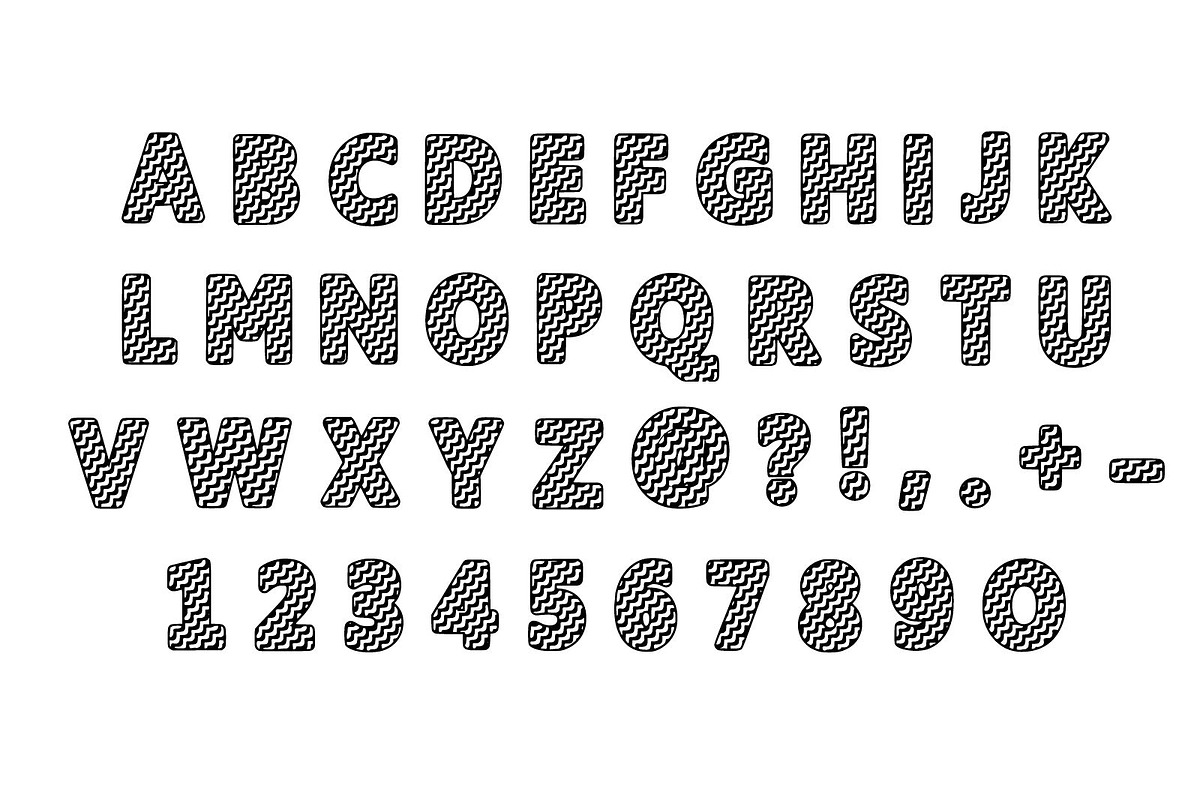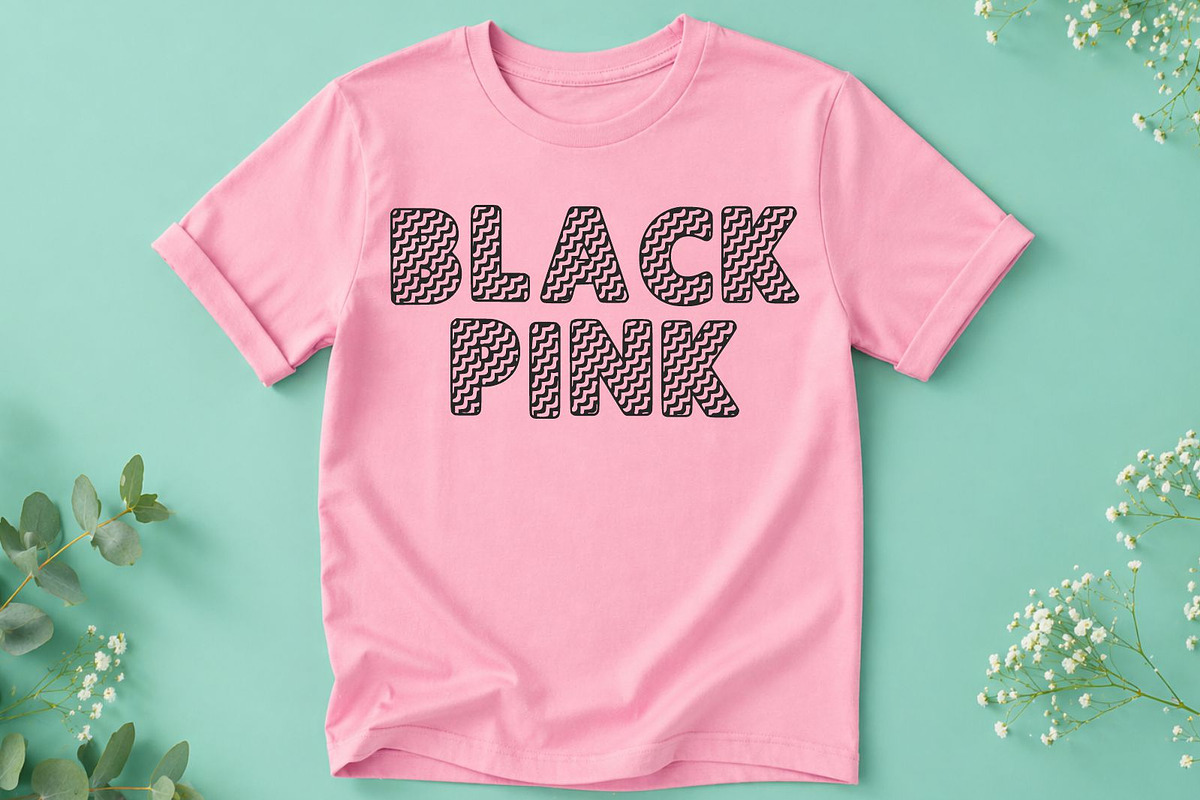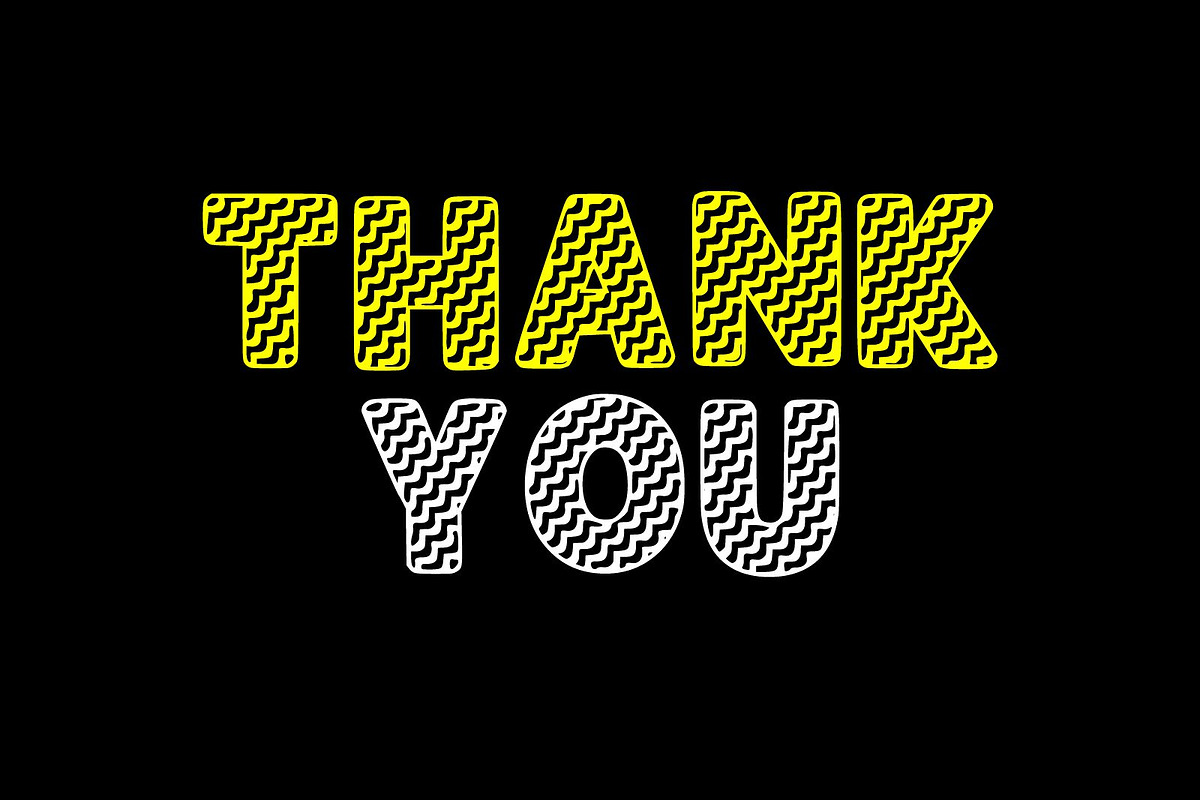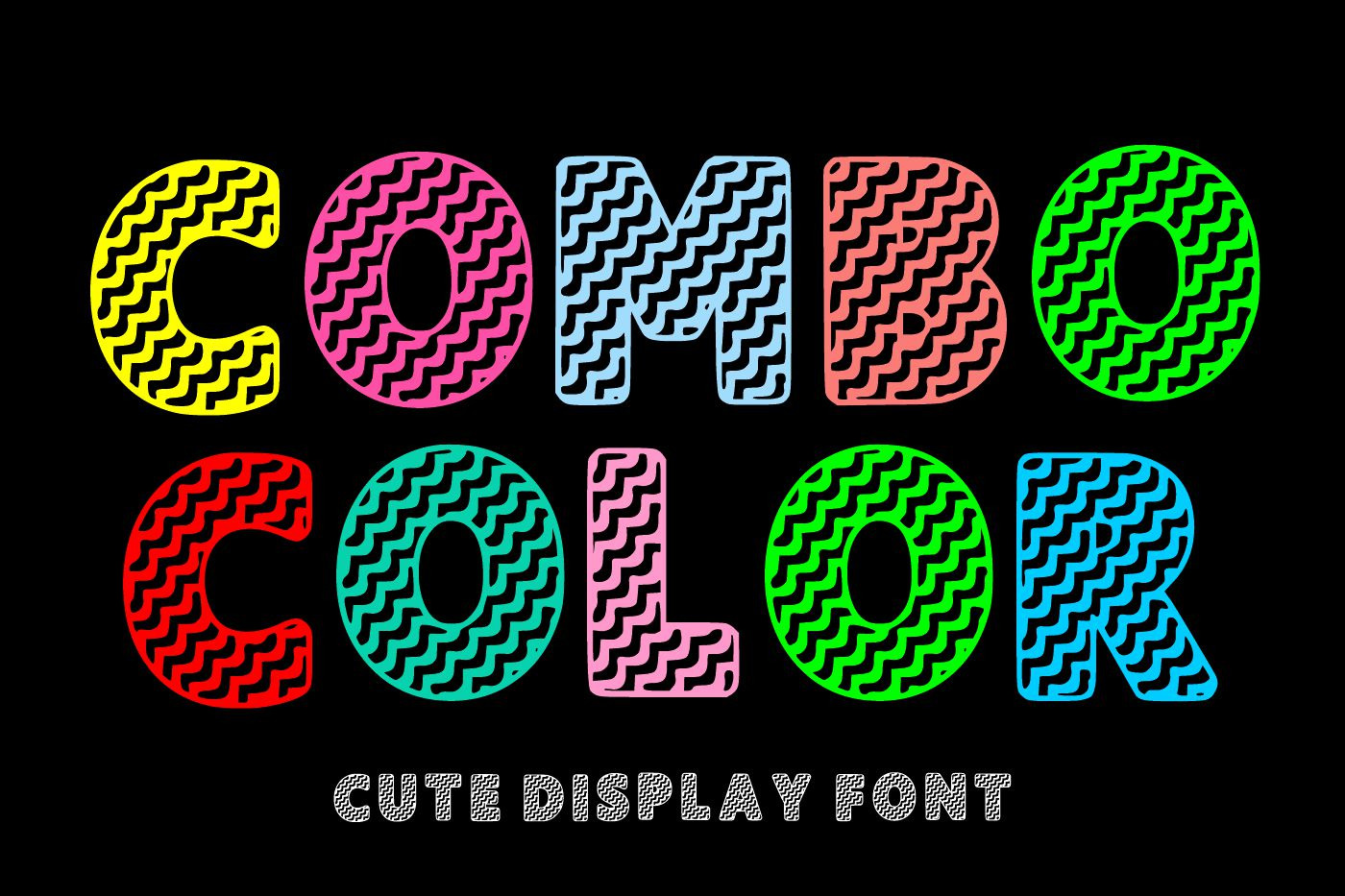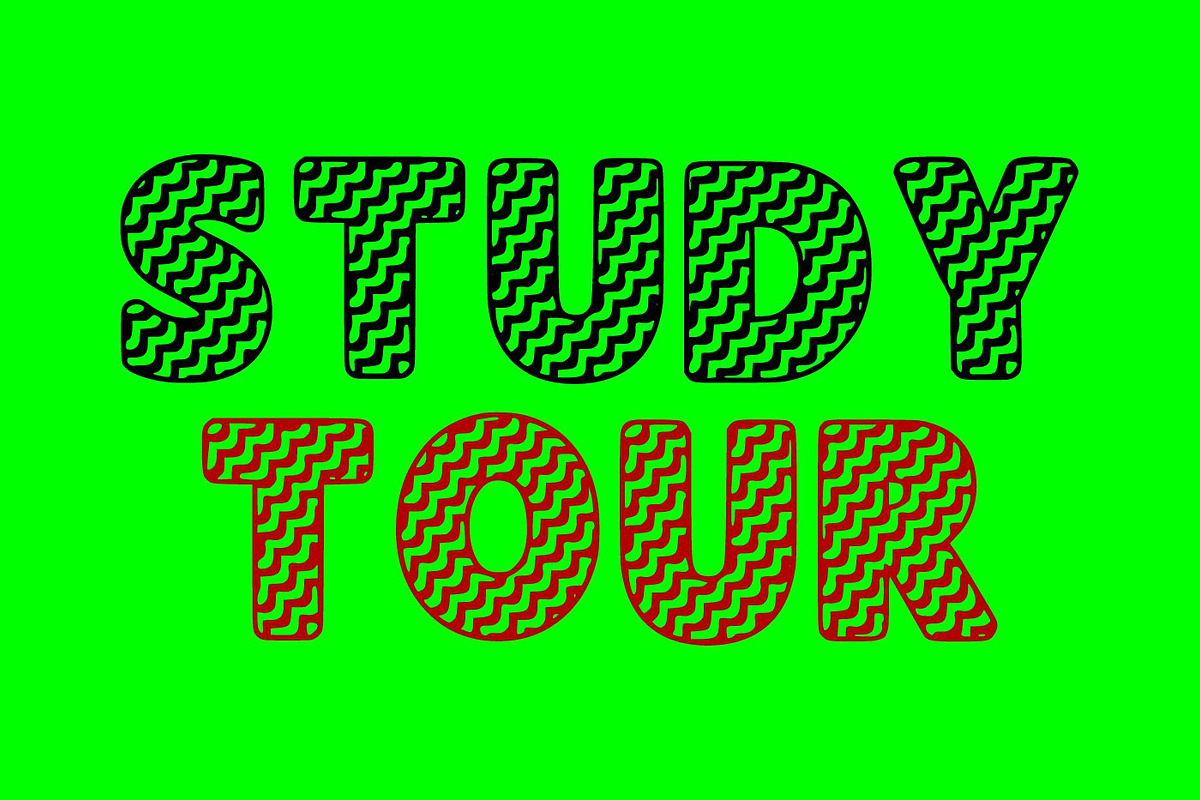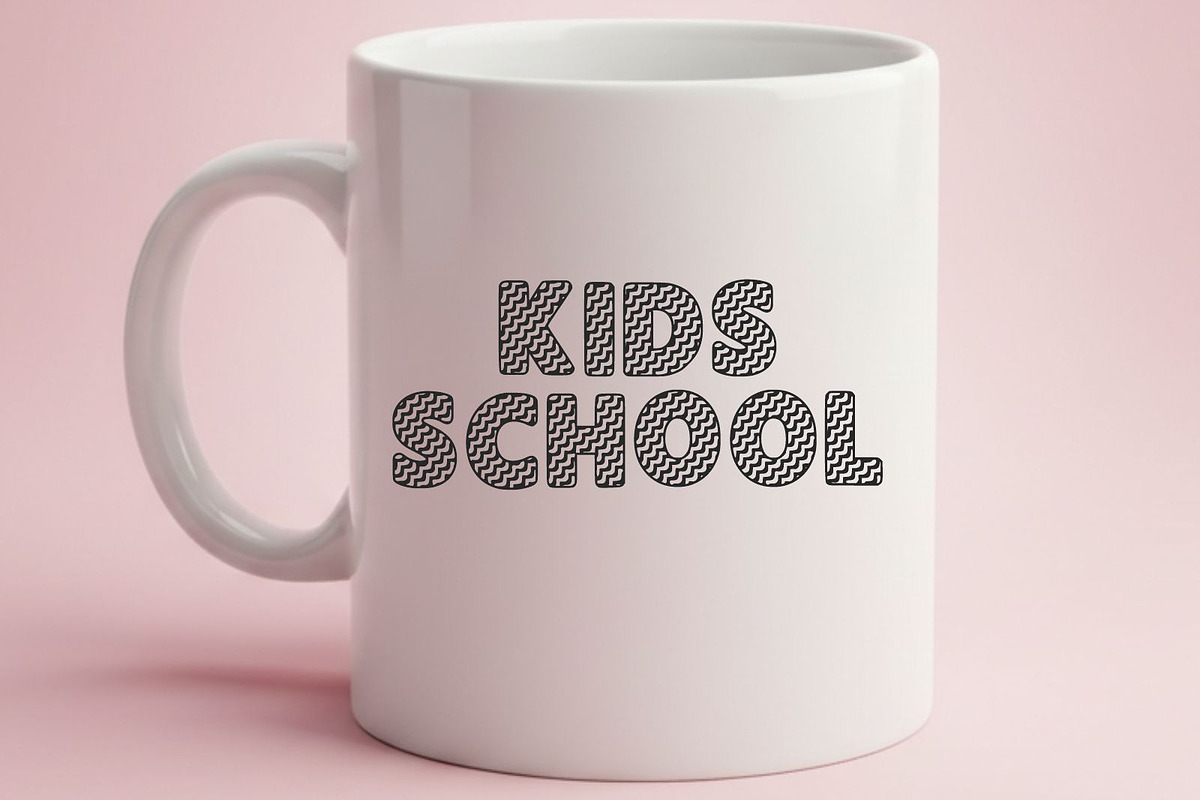
Combo Color – Cute Colorful Font
Combo Color is a playful and vibrant display font featuring fun colorful characters with unique wave patterns inside each letter. This font is perfect for kids projects, comic designs, posters, branding, social media graphics, toy packaging, birthday invitations, stickers, and cheerful typography creations. Its bold and energetic style adds a joyful and eye-catching touch to any creative design.